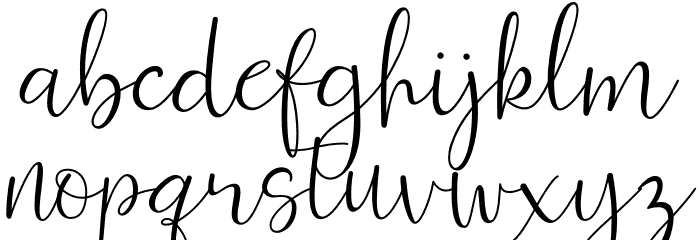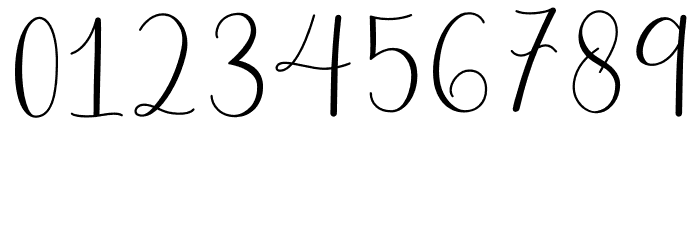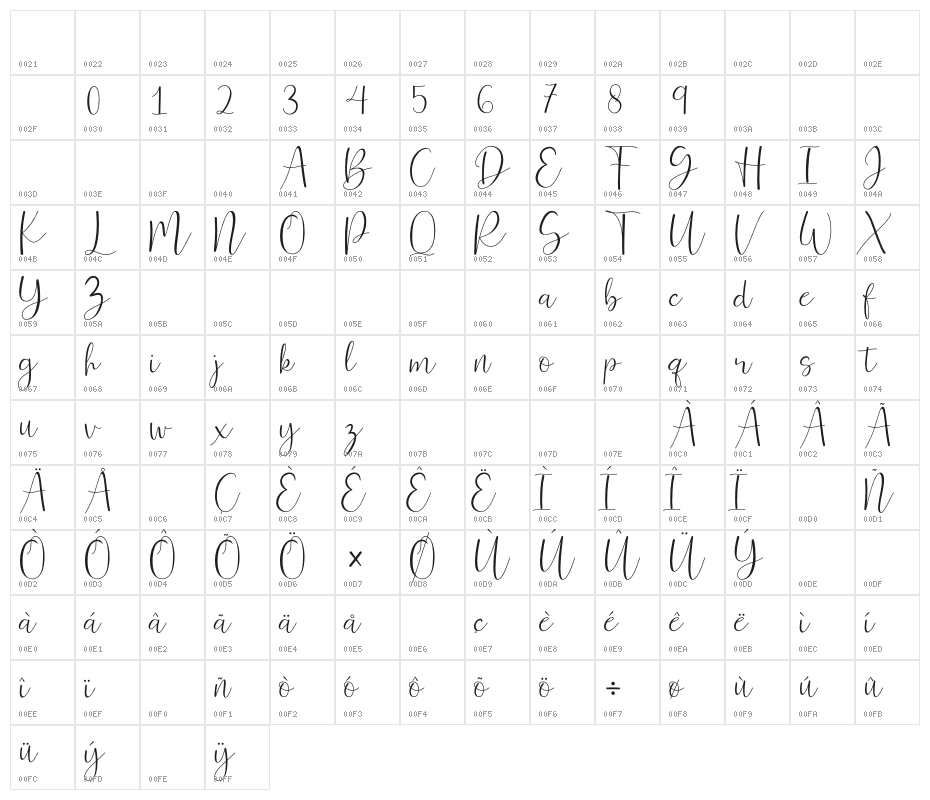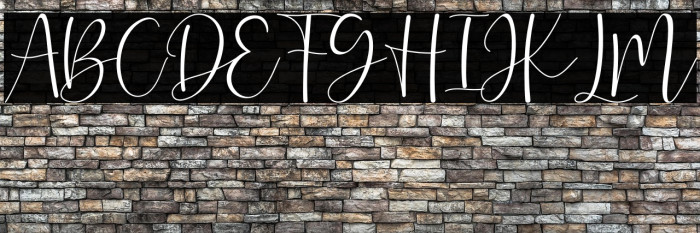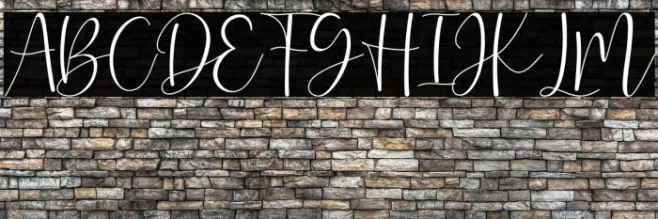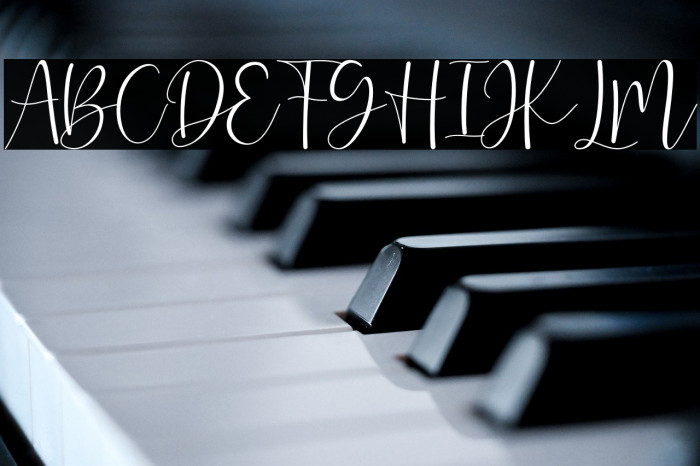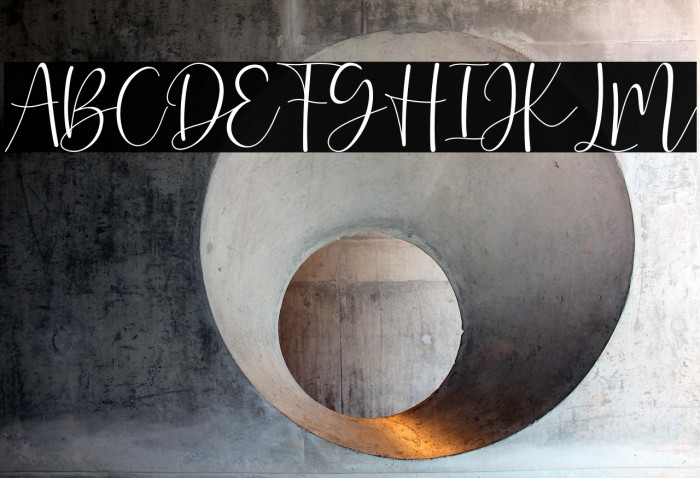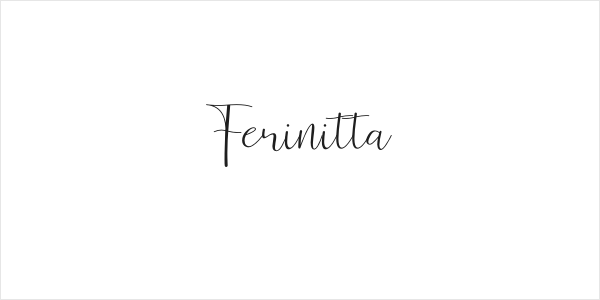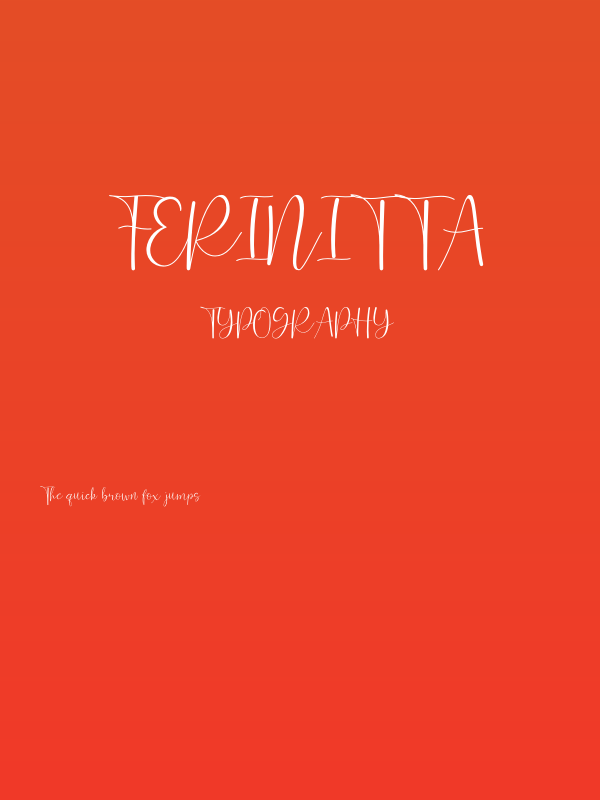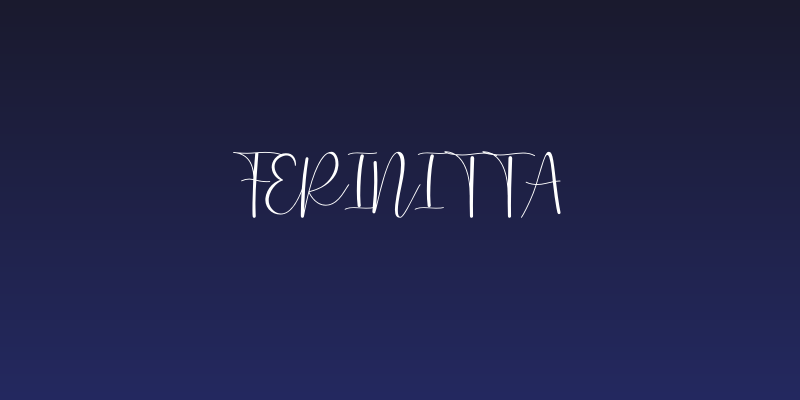
Ferinitta Font
This elegant and flowing script font features a handwritten style with smooth, continuous strokes that give it a graceful and sophisticated appearance. The uppercase letters are slightly more ornate, with loops and swirls that add a touch of flair, while the lowercase letters maintain a consistent and fluid form. The numbers are designed to match the overall style, providing a cohesive look across all characters. The font's delicate lines and curves make it ideal for projects that require a personal and artistic touch.
A graceful and flowing handwritten script font with elegant curves.
- Font: Ferinitta
- Proposed Projects: Ideal for wedding invitations, greeting cards, branding, and logo design.
- Category: Script
- Overall Style: Elegant
- Use Case: Logos, Invitations, Greeting Cards